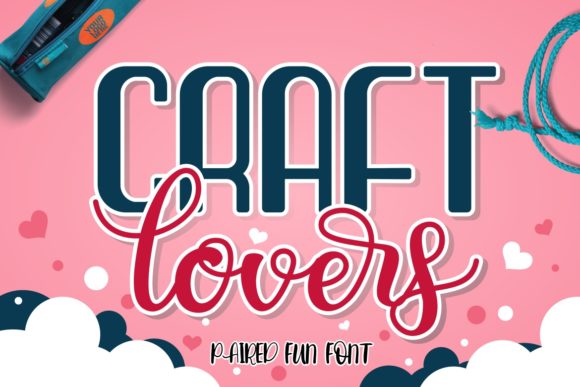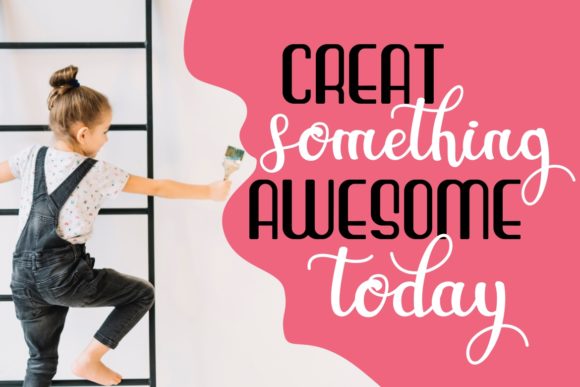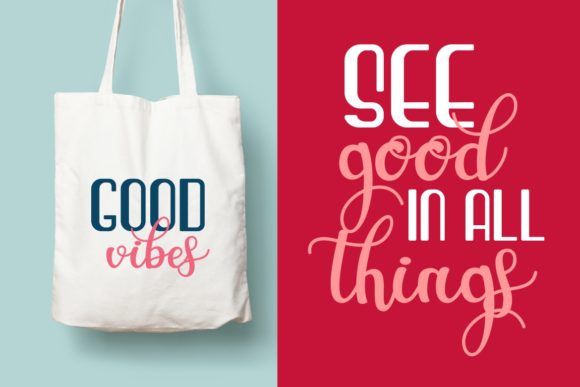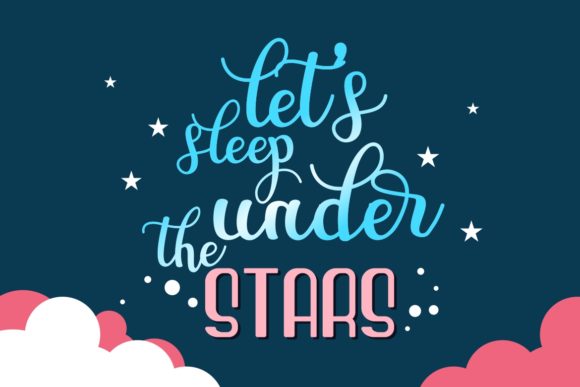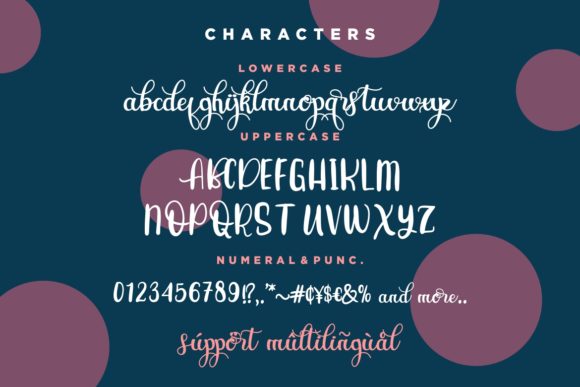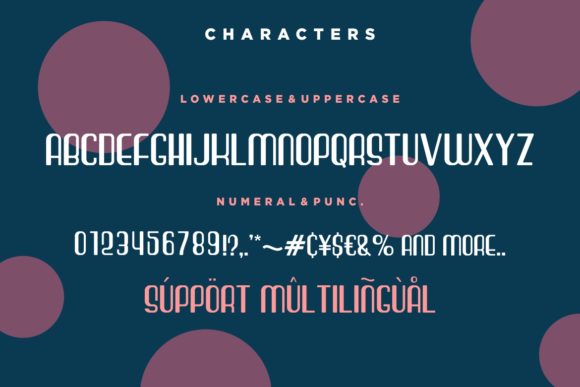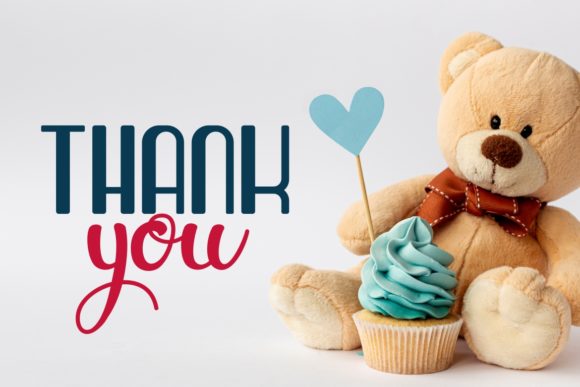
Craft Lovers Font
About Craft Lovers Font
Craft Lovers is a lovely script and sans paired font.
This cute font is perfect for creating craft projects, posters, branding, invitations, quotes, or anything else.
Make your new designs stand out with Craft Lovers!